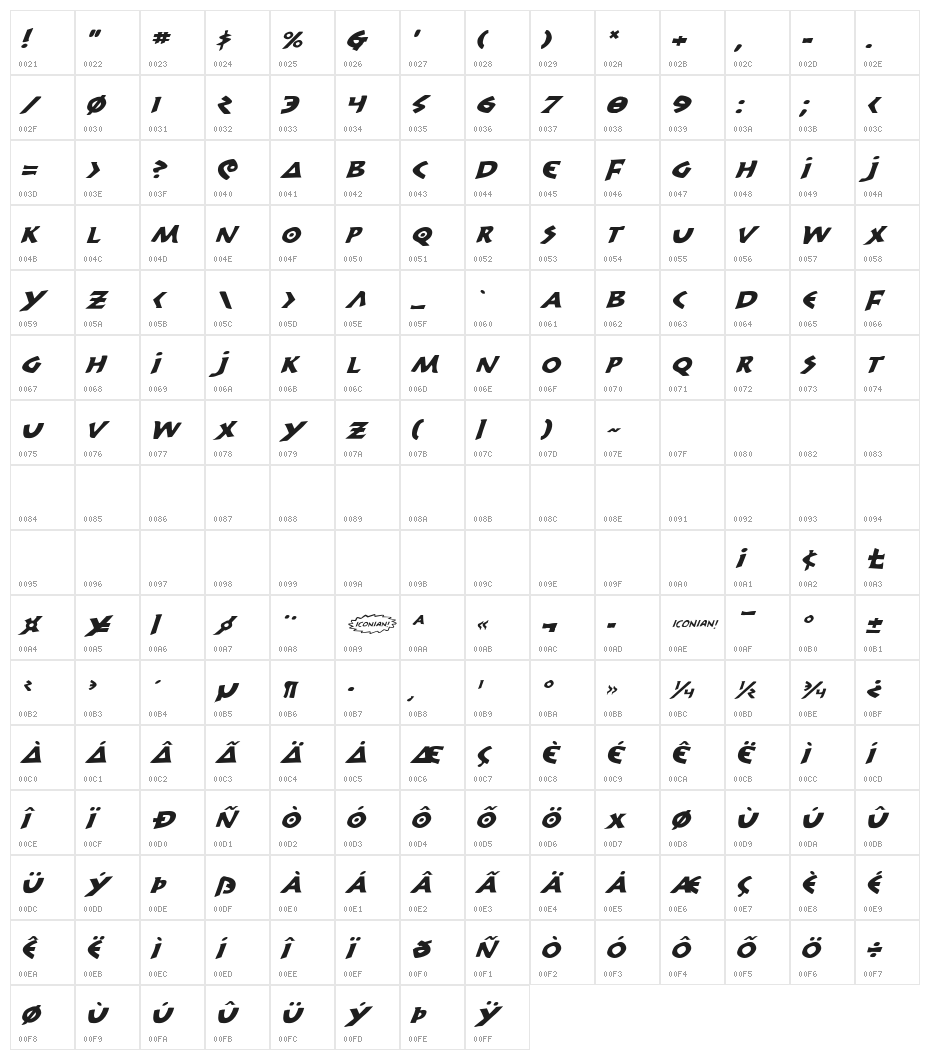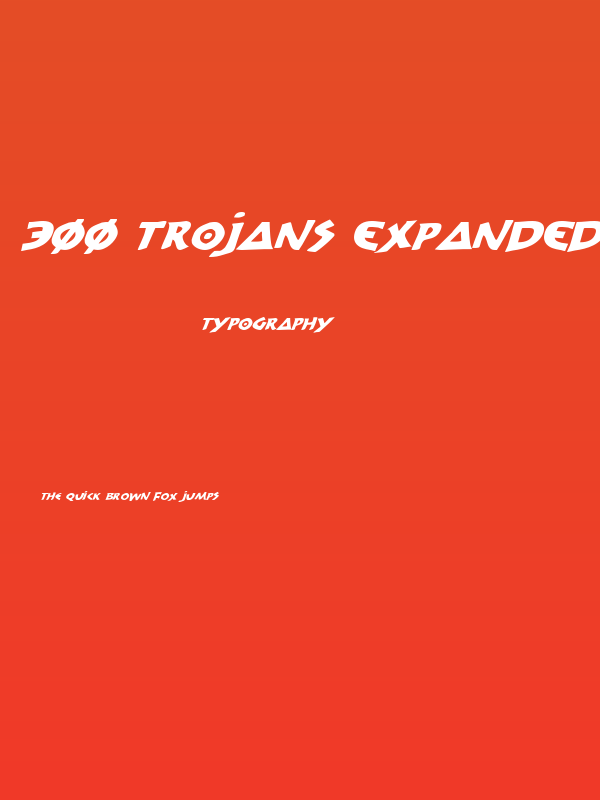
300 Trojans Expanded Italic Font
300 Trojans Expanded Italic Description
This font features a bold and dynamic design with a distinct italic slant, giving it a sense of motion and energy. The characters are wide and expansive, with sharp angles and a futuristic aesthetic. The uppercase letters are particularly striking, with a strong presence that commands attention. The lowercase letters maintain the same bold style, ensuring consistency throughout the text. Numbers and special characters are equally bold, making them stand out effectively. This font is ideal for projects that require a modern and impactful look.
| Proposed Projects | Ideal for branding, posters, video game titles, and any project needing a modern, bold statement. |